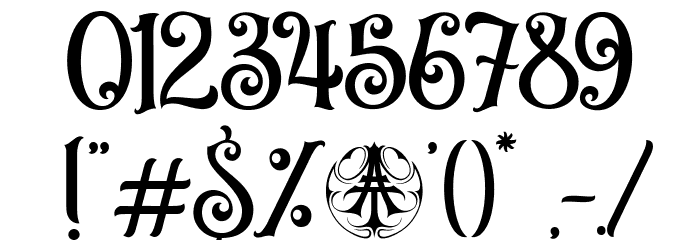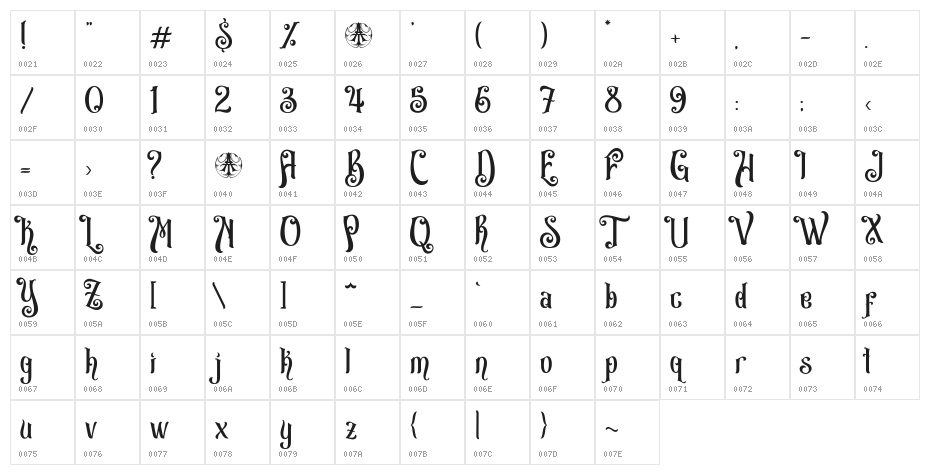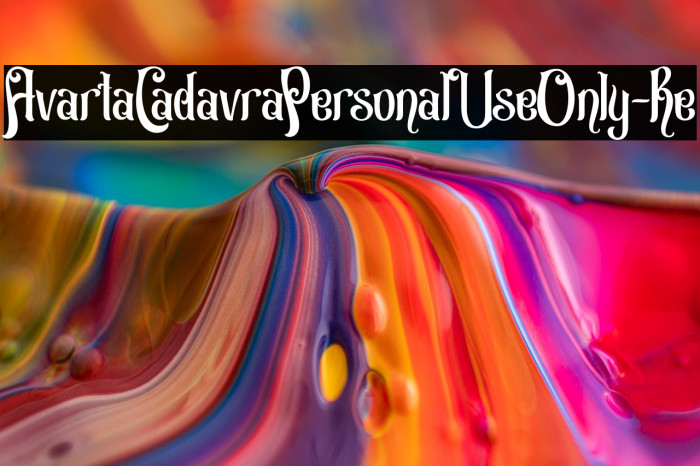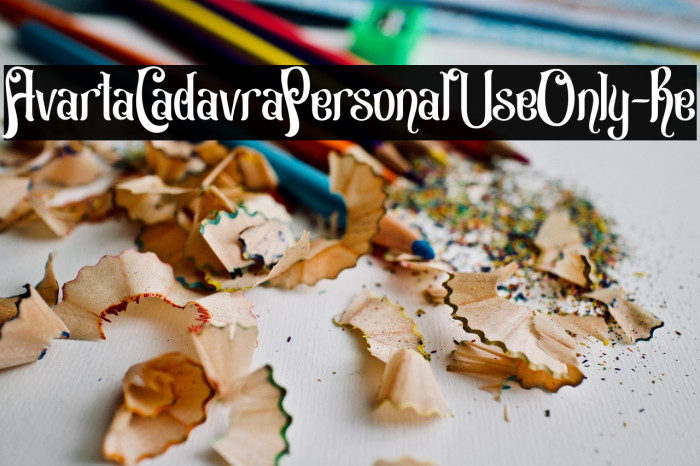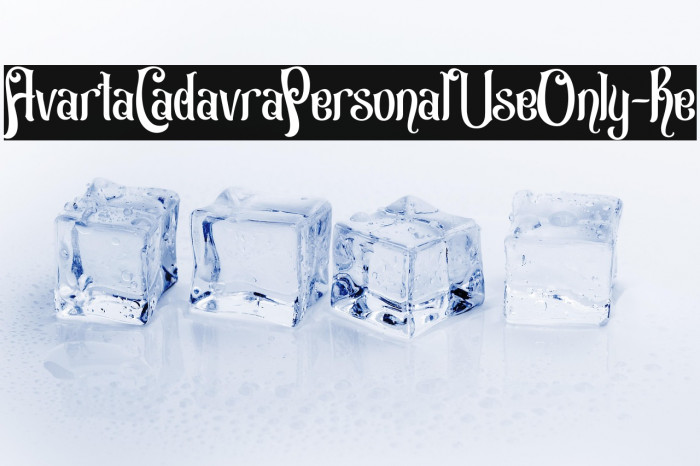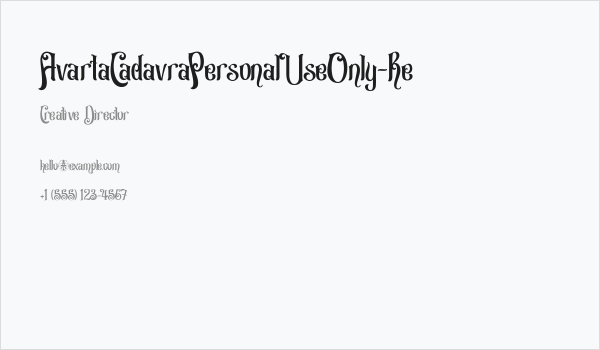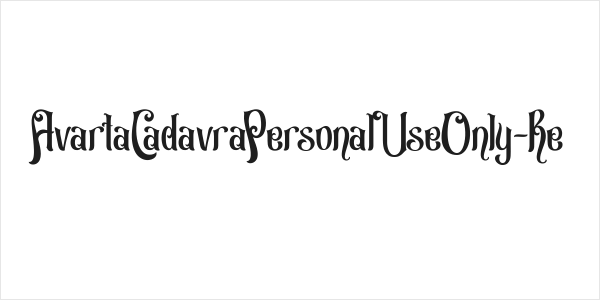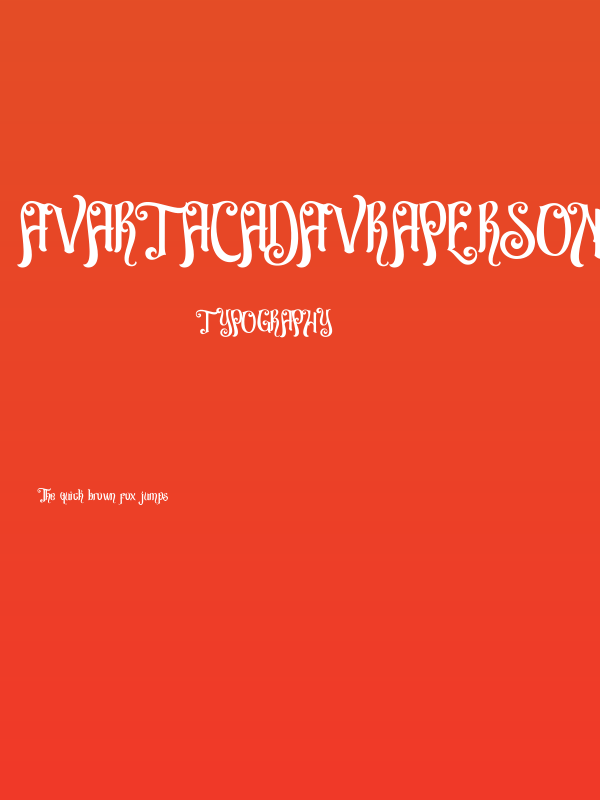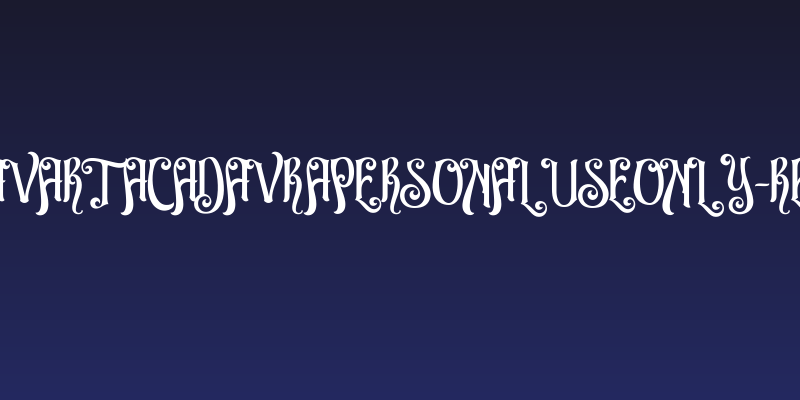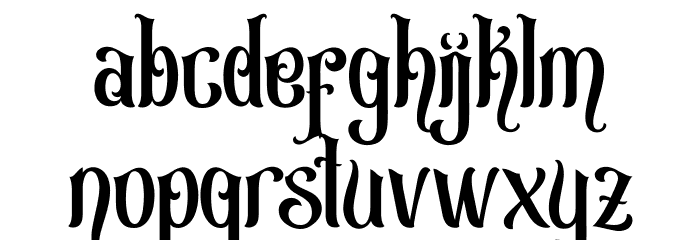
AvartaCadavraPersonalUseOnly-Re Font
AvartaCadavraPersonalUseOnly-Re Description
This font features an ornate and whimsical design with a strong decorative flair. Each character is crafted with intricate swirls and curls, giving it a playful yet elegant appearance. The uppercase letters are particularly elaborate, with exaggerated loops and flourishes that add a sense of movement and dynamism. The lowercase letters maintain the decorative style but are slightly more subdued, ensuring readability. Numbers and special characters are equally stylized, making them suitable for creative and artistic projects. The overall aesthetic is reminiscent of a magical or fantasy theme, perfect for adding a touch of enchantment to any design.